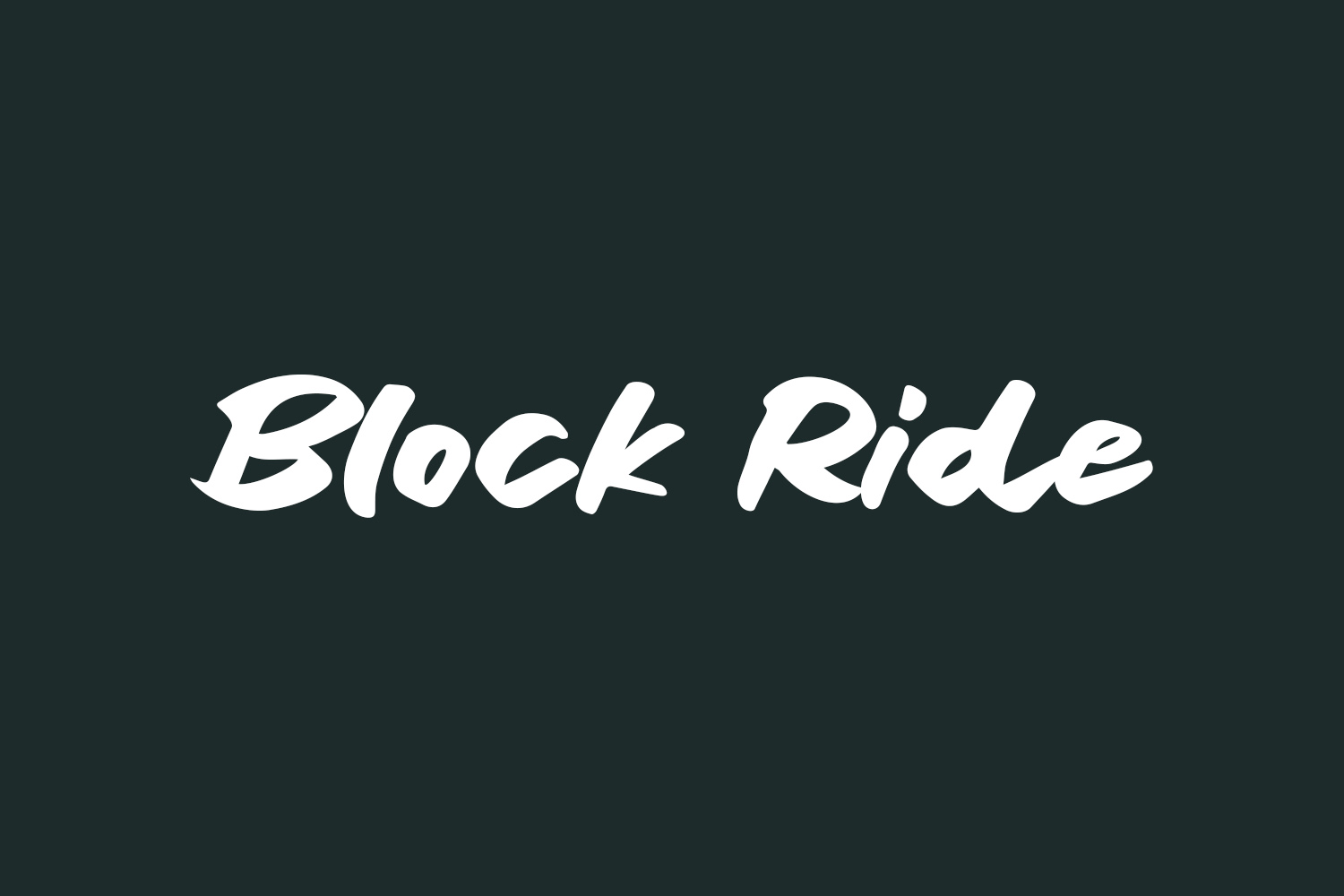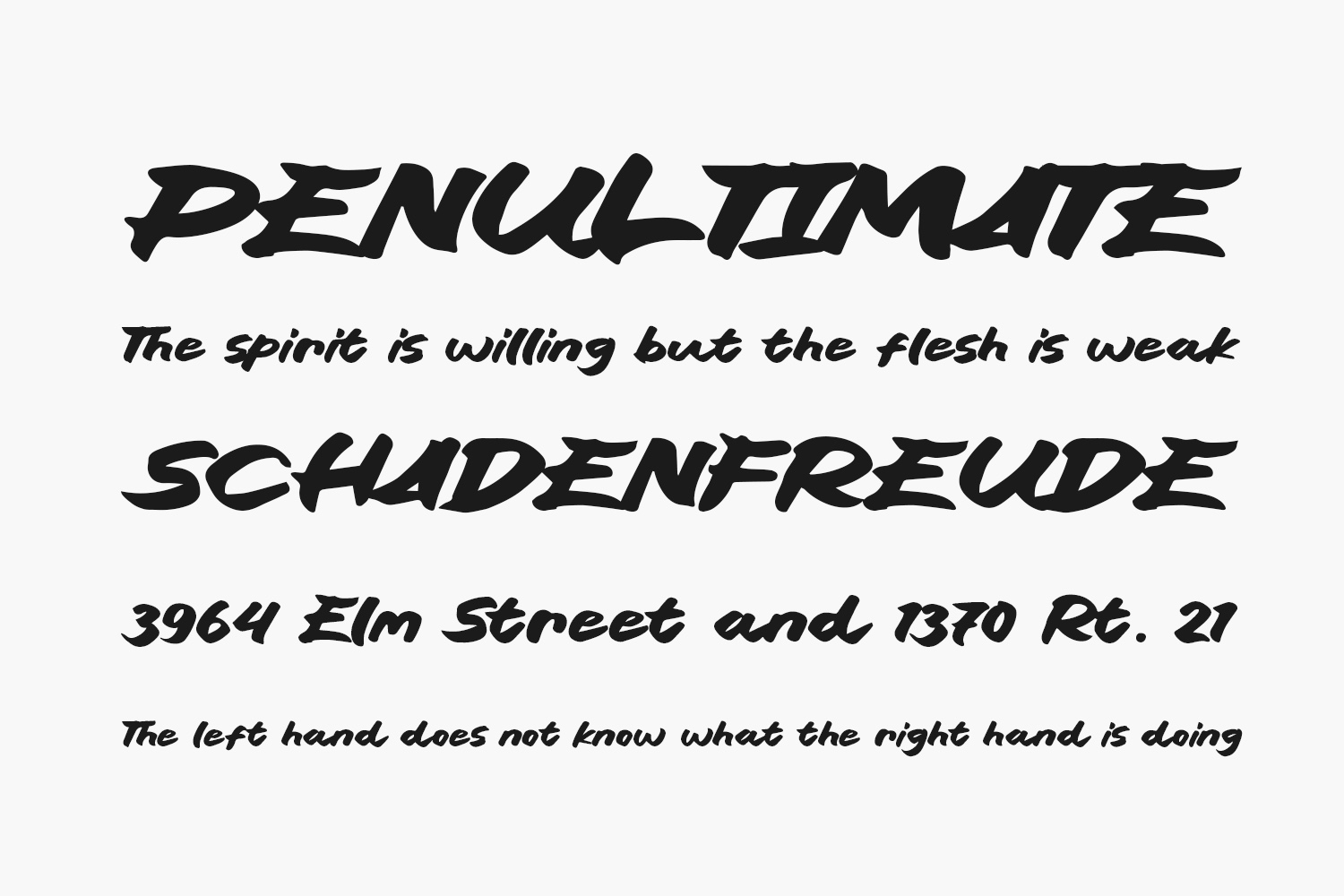
Block Ride Free Font is a fun, playful brush font that brings a hand-drawn feel to your designs. With its wild strokes and bold lines, it’s perfect for creating quirky logos, fun social media posts, and playful headlines. Whether you’re looking to add a touch of whimsy to your designs or want to create a bold statement, Block Ride is the free font you need. So why wait? Get creative and let Block Ride bring some excitement to your designs today!